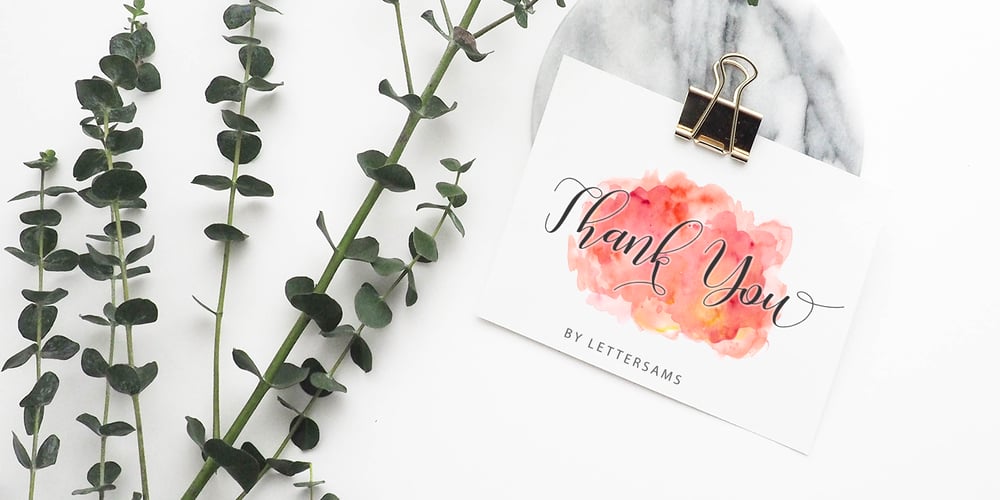
Kimberia Script
Kimberia Script font
Kimberia Script Font Family was designed by Samsul Kamal and published by Lettersams. Kimberia Script contains 2 styles and family package options. Kimberia script is a modern calligraphy design, including Regular and italic. This font can be used for various purposes. such as logos, product packaging, wedding invitations, branding, titles, signs, labels, signatures, book covers, posters, quotes and more. Kimberia script displays alternative OpenType styles, ligatures and Various International characters for most Western languages. To enable OpenType Stylistic alternates, use programs that support OpenType features like Adobe Illustrator CS, Adobe Indesign & CorelDraw X6-X7, Microsoft Word 2010 or later. Kimberia script is encoded with PUA Unicode, which allows access to all features without special design software. Mac users can use Font Books, and Windows users can use Character Map to view and copy extra characters to paste into your favorite app / text editor. If you need help or have any questions, please let me know or send email “lettersams@gmail.com” I am happy to help 🙂 Thanks & Happy Designing!